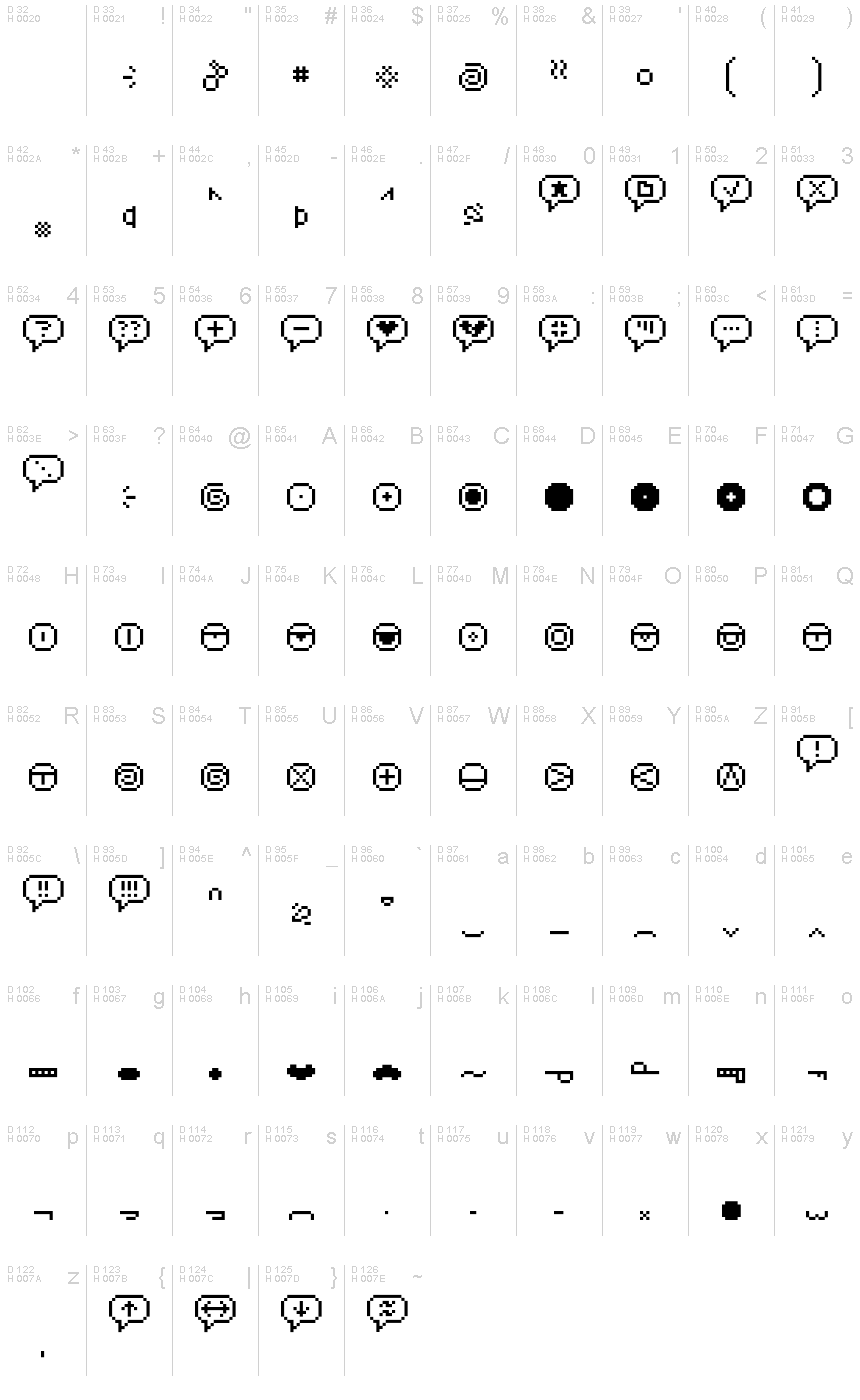
Pixelface
Pixelface is a dingbat font that exudes a playful, retro-inspired charm. Its simple, geometric shapes and pixelated aesthetic evoke a nostalgic sensibility, harkening back to the golden age of classic video games and 8-bit art. This versatile font offers a wide range of unique symbols and icons, making it an excellent choice for a variety of design applications, from branding and packaging to digital interfaces and illustrations.
Pixelface's striking visual presence lends itself well to projects seeking a bold, eye-catching, and distinctly vintage-inspired aesthetic.
Build your own face.